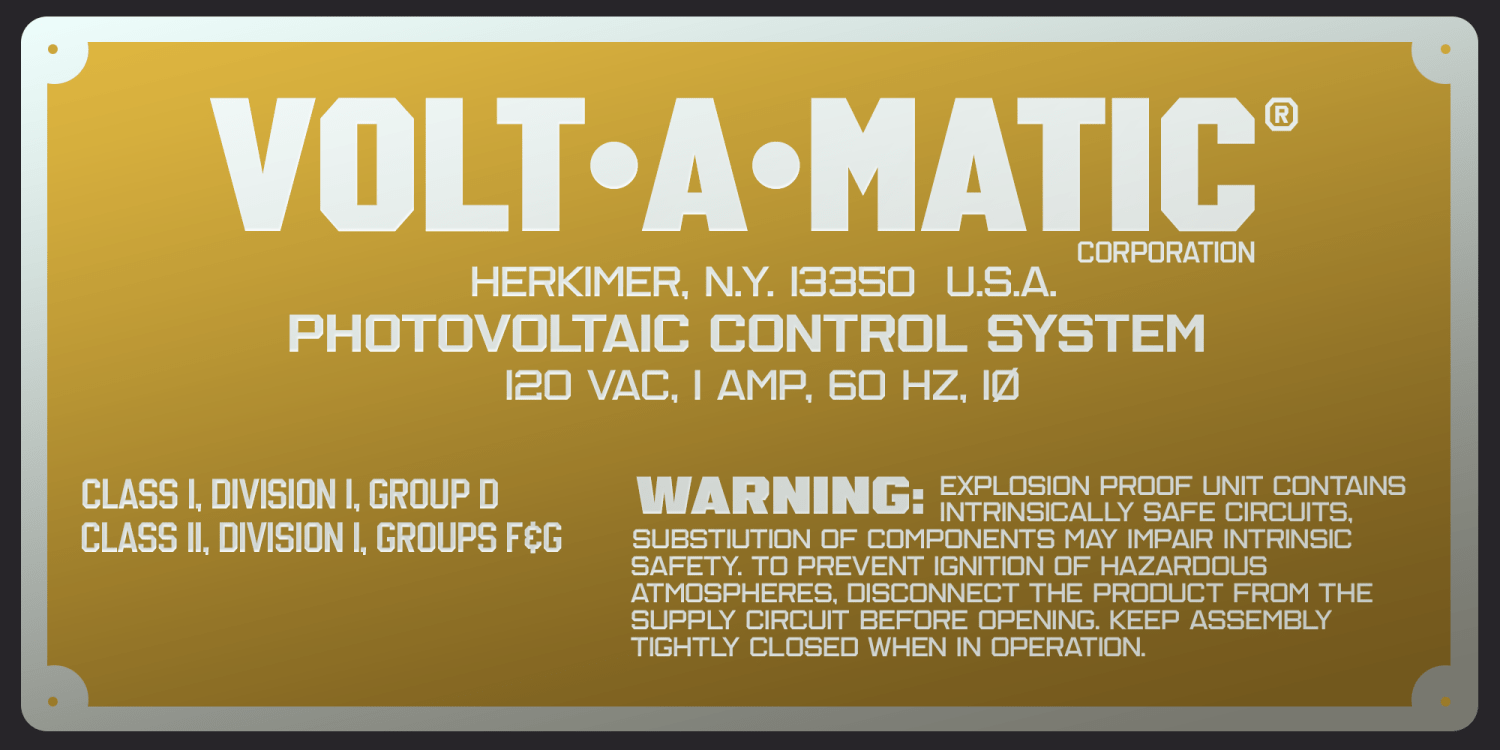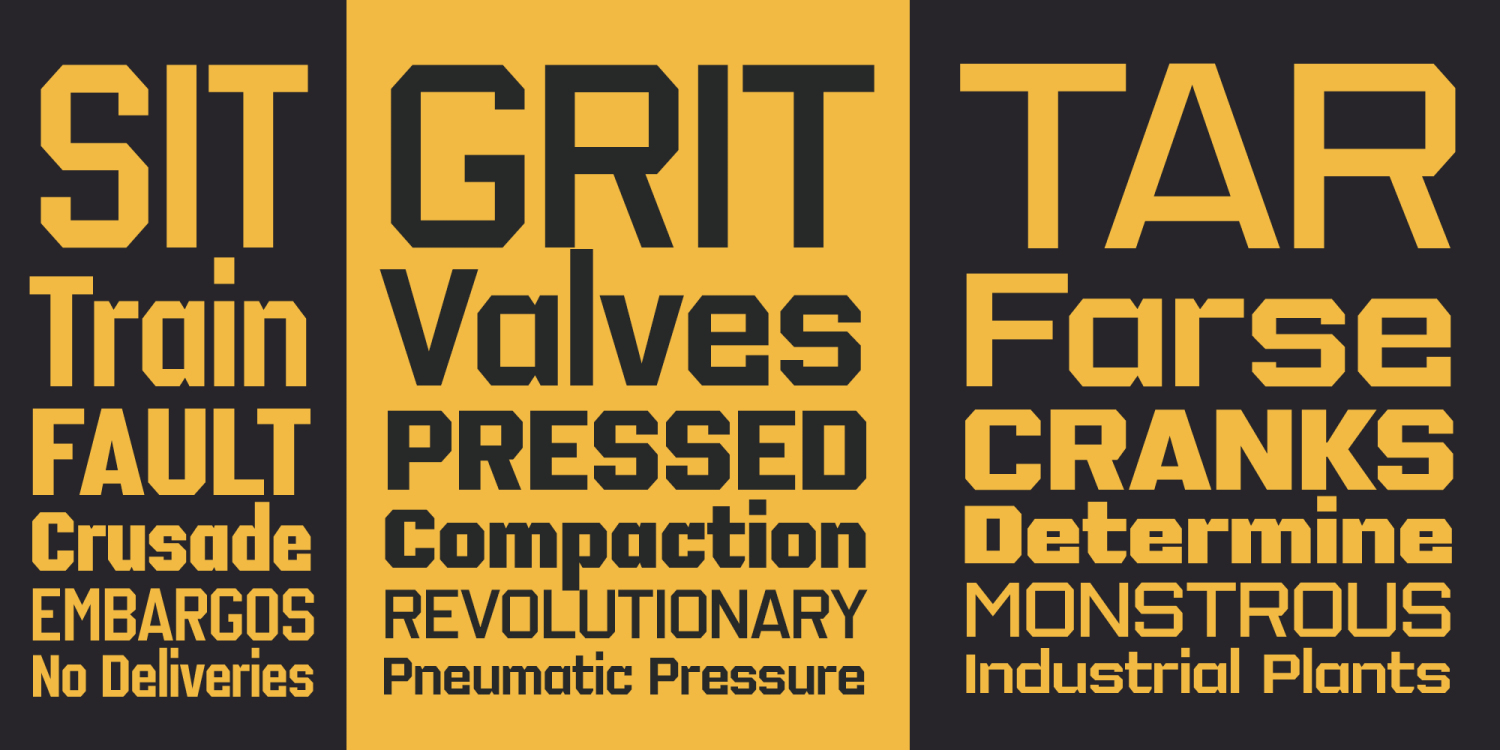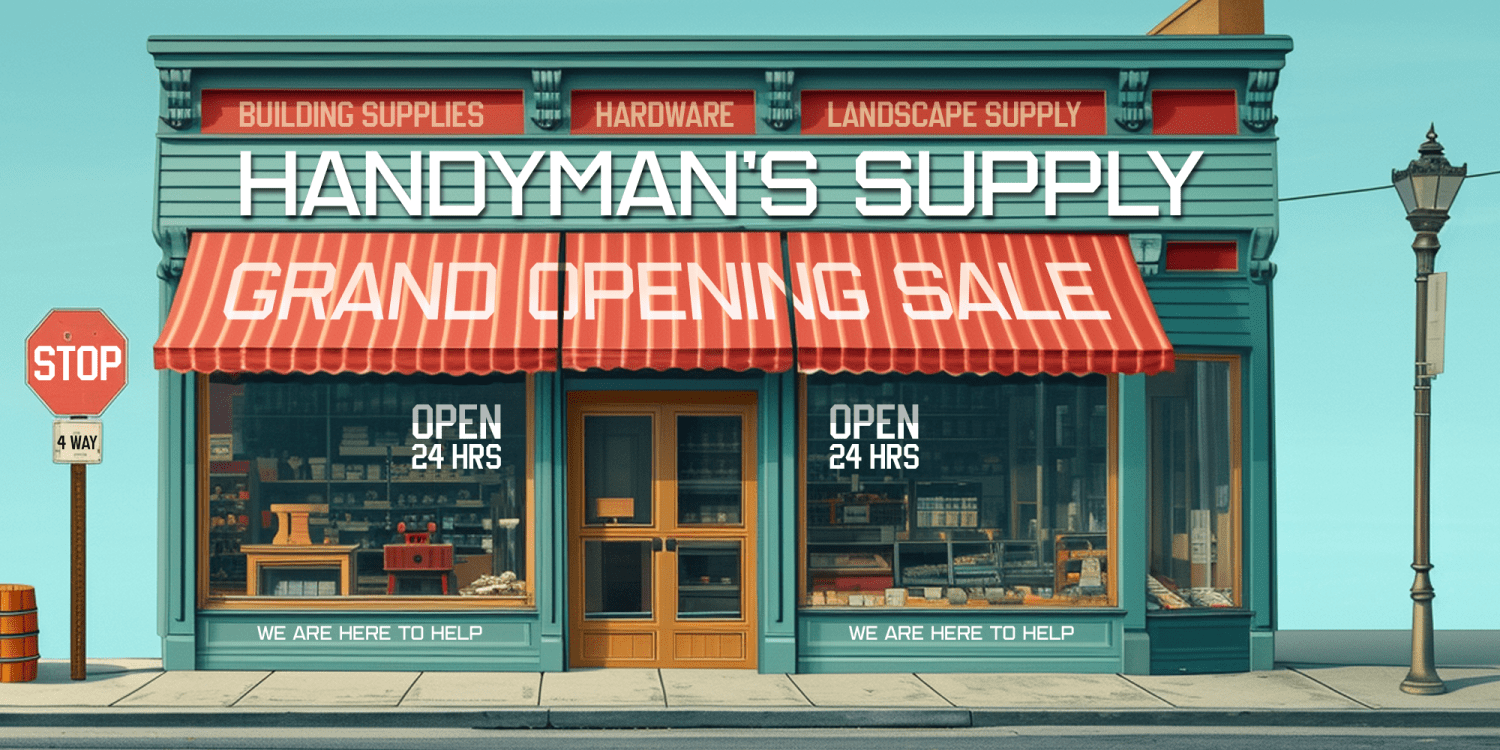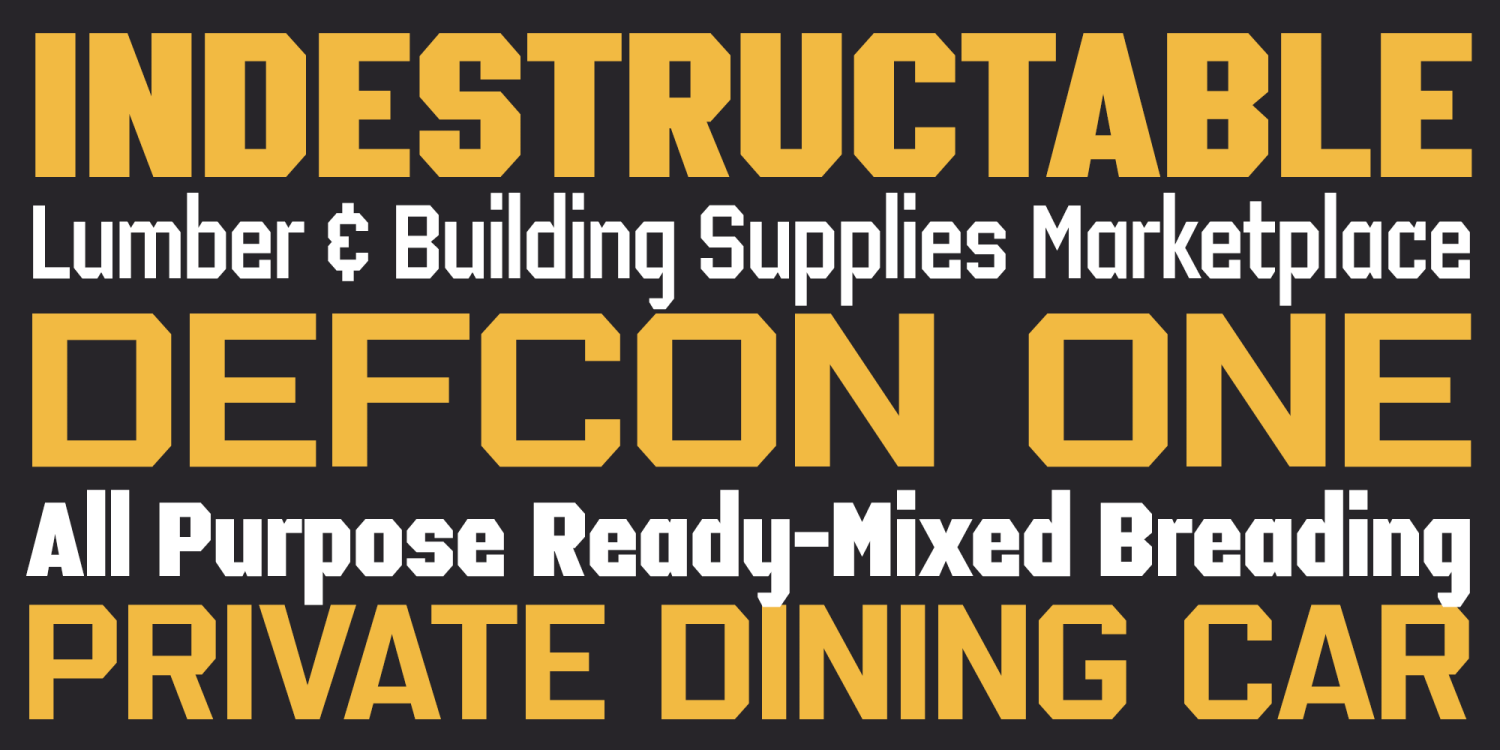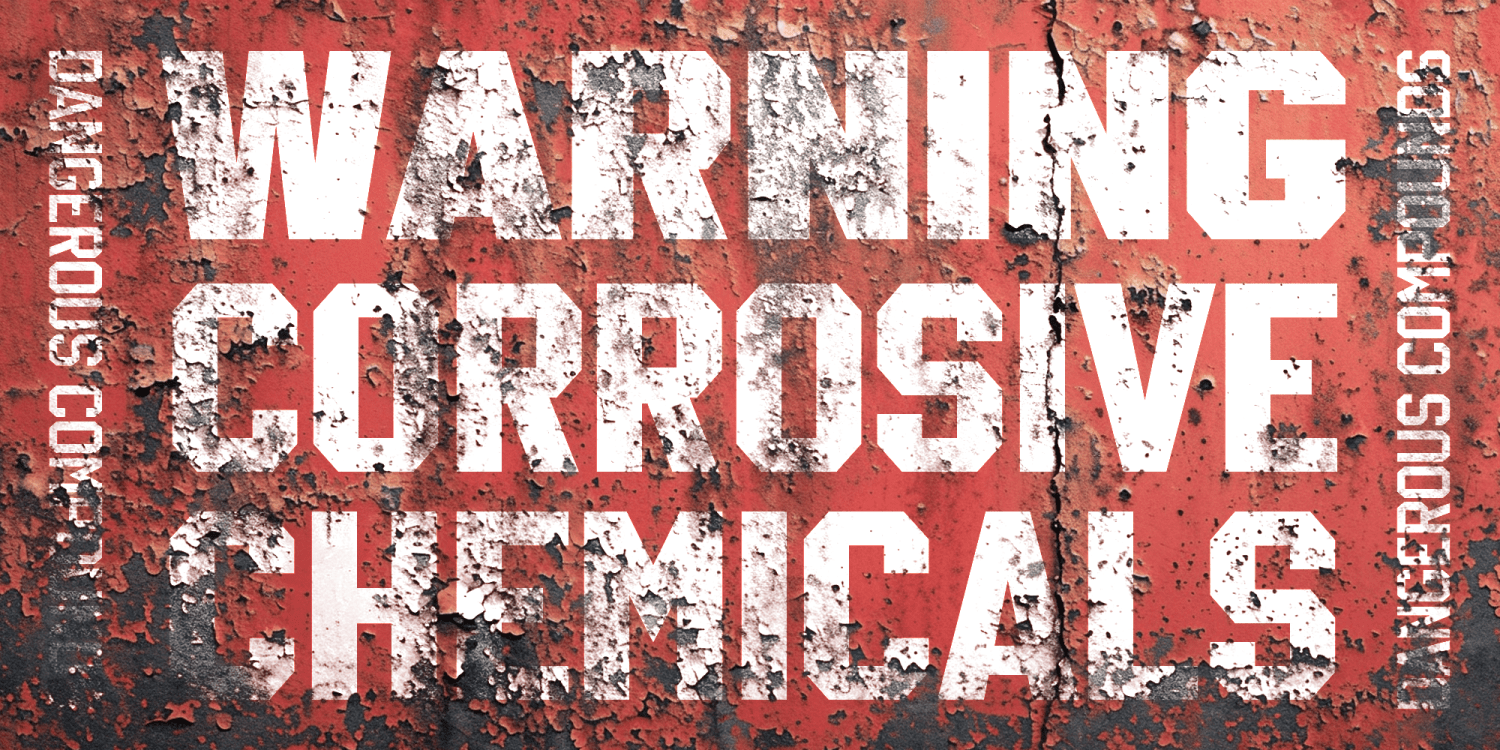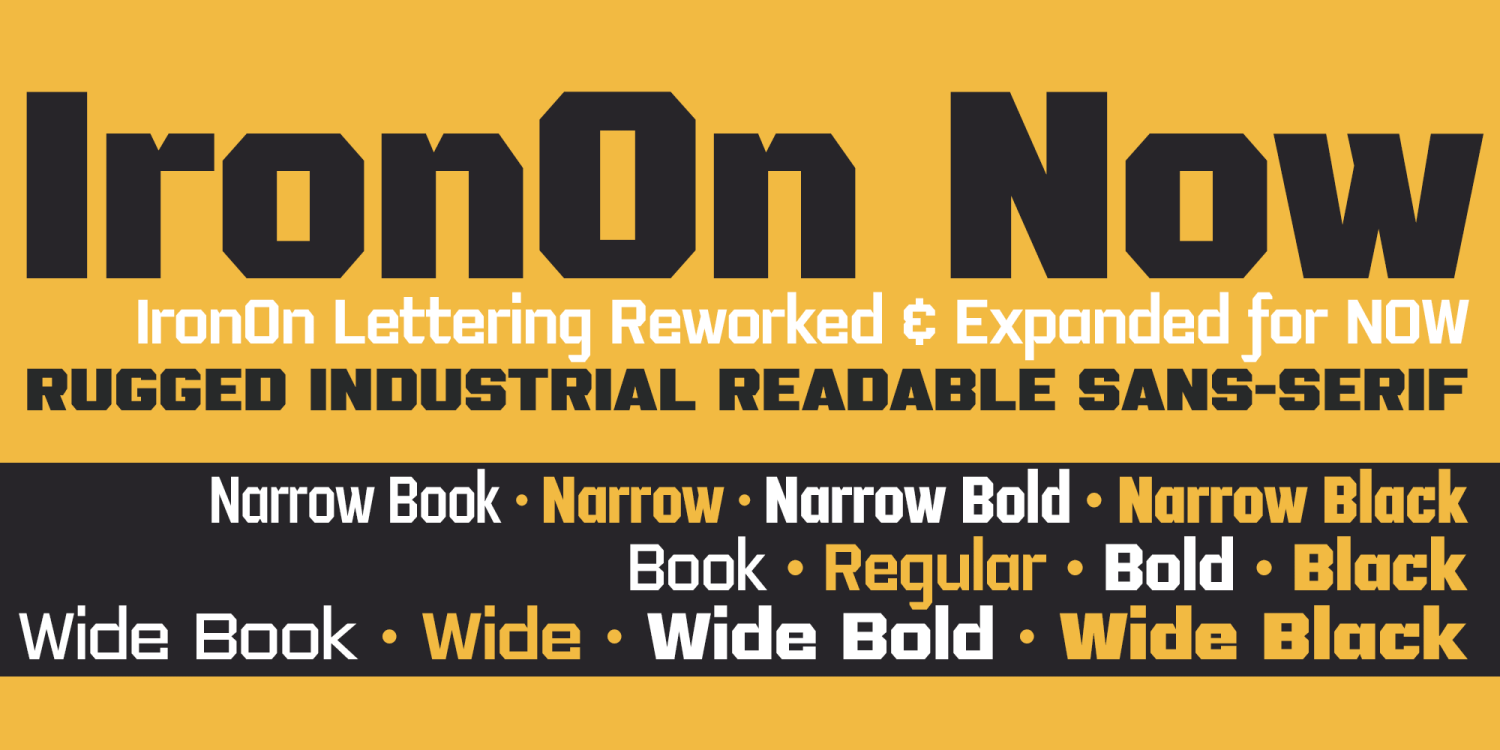
About IronOn Now Collection
An evolved expansion of the IronOn Family, IronOn Now takes the original typestyles created back in 2008 and gets a little overhaul while also expanding the iron-on transfer lettering of the 70's typestyle to a much larger and robust font…